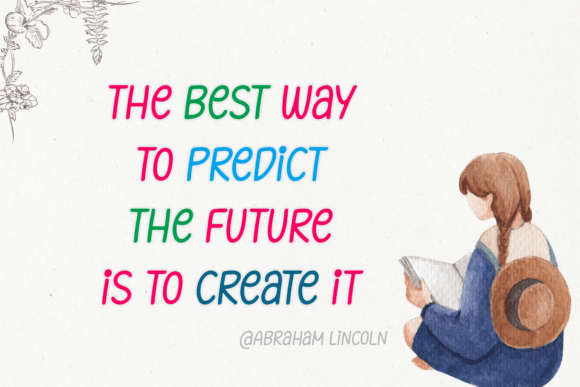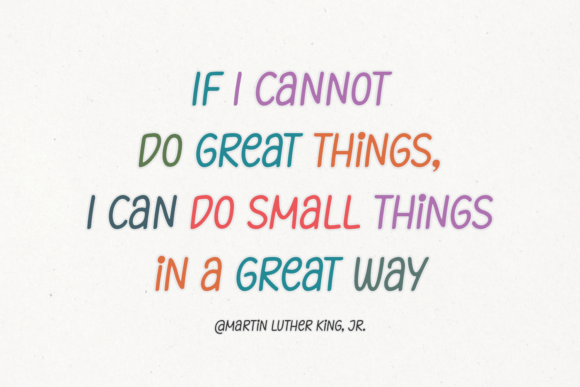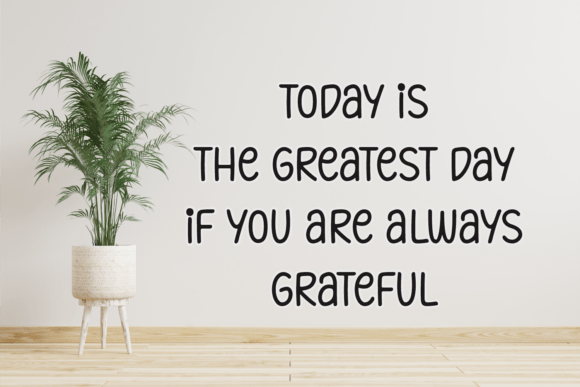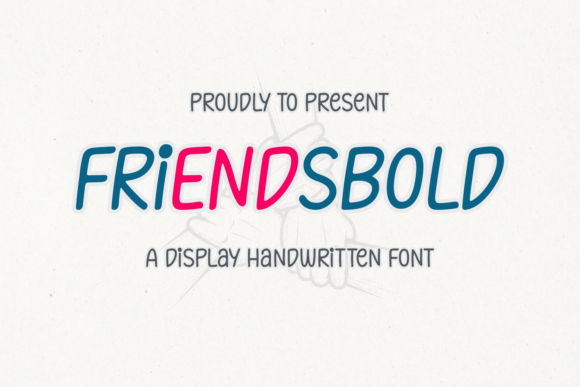
Introduction to Friendsbold Font
Indulge in the artistic charisma of Friendsbold, a font meticulously crafted to invigorate your designs.
Flaunting an air of elegance, it effortlessly complements all your craft design endeavors Handwritten with rounded-edge capital letters, it imbues a sense of sophistication in all your design requirements.